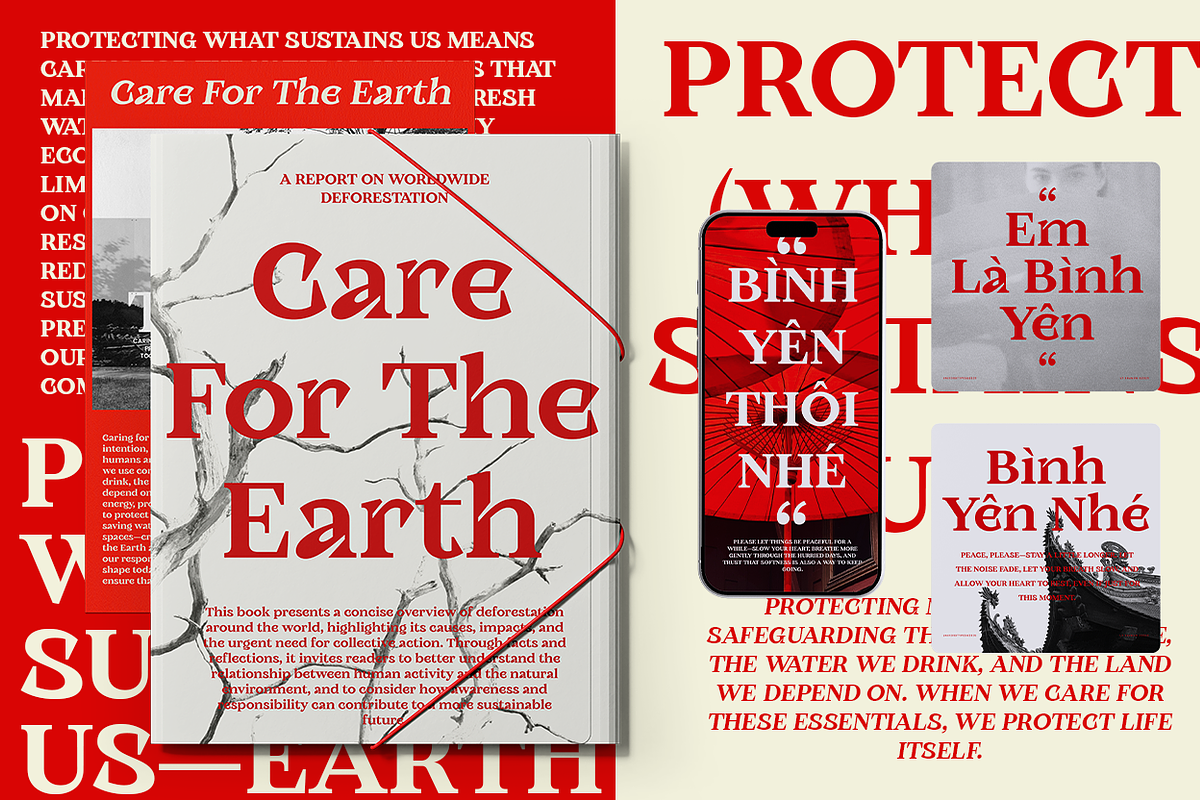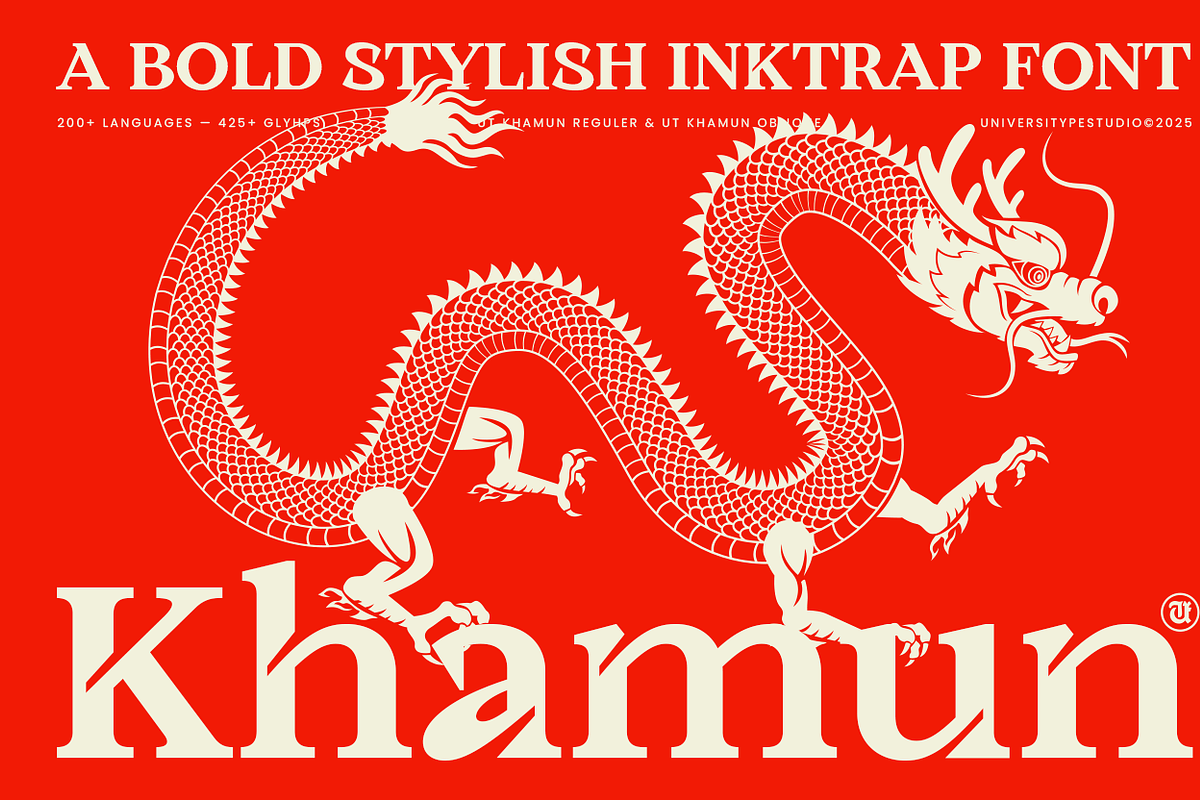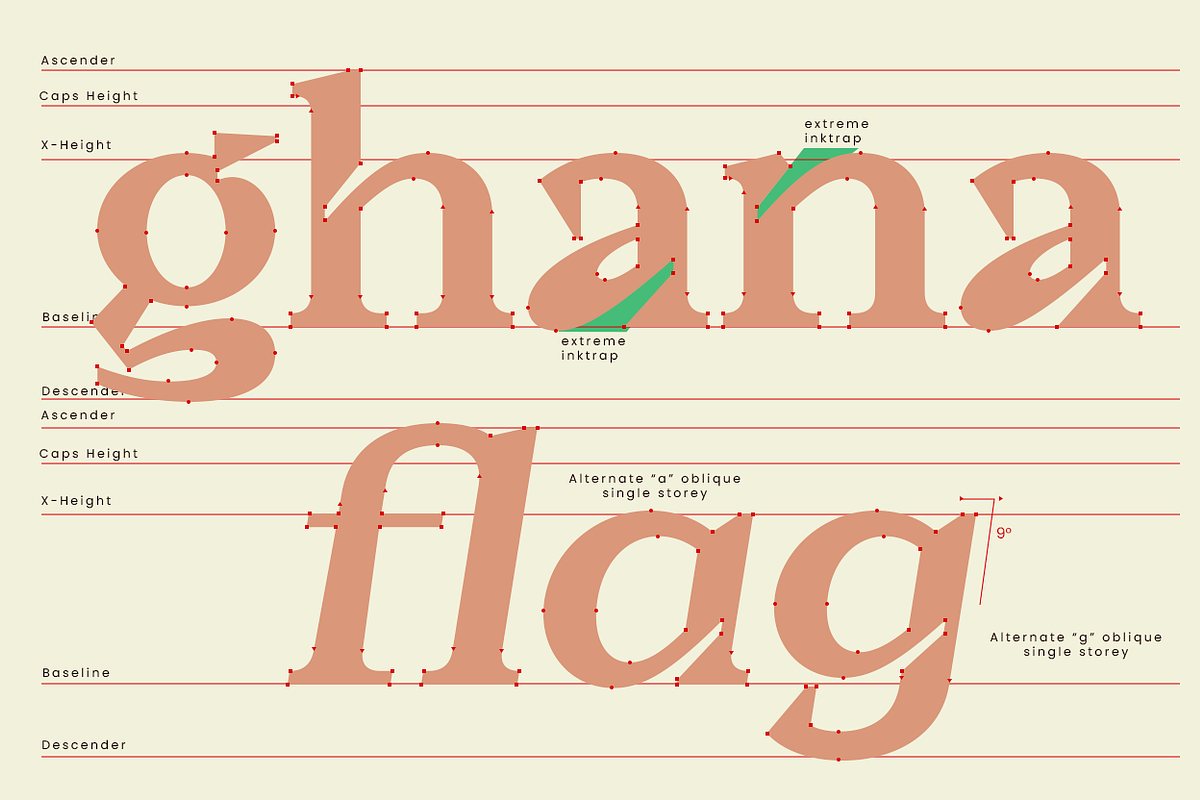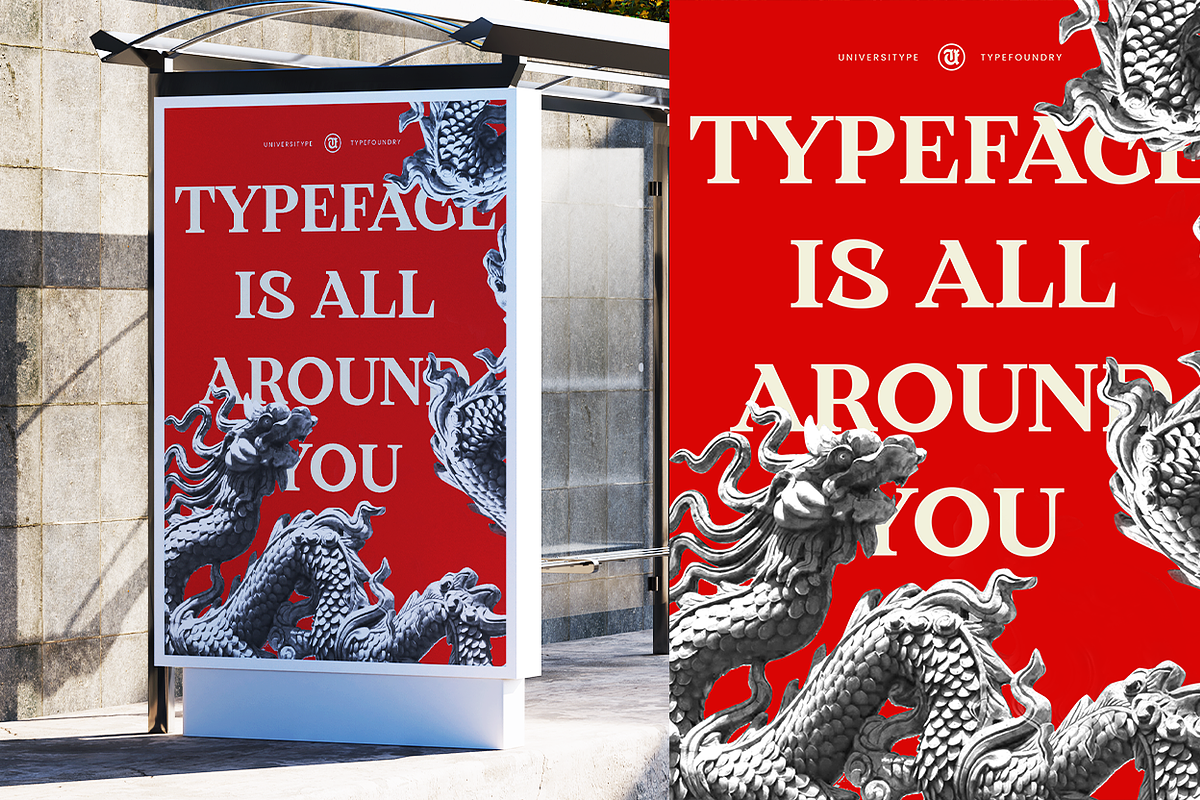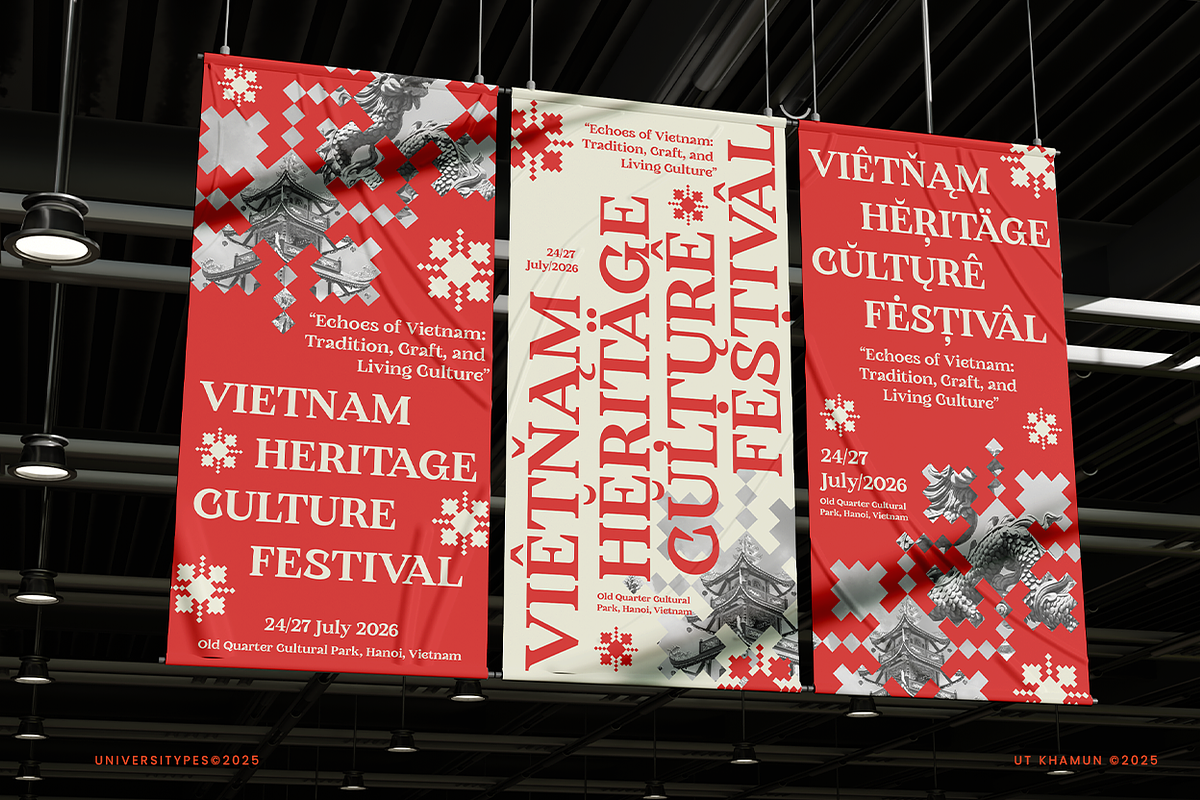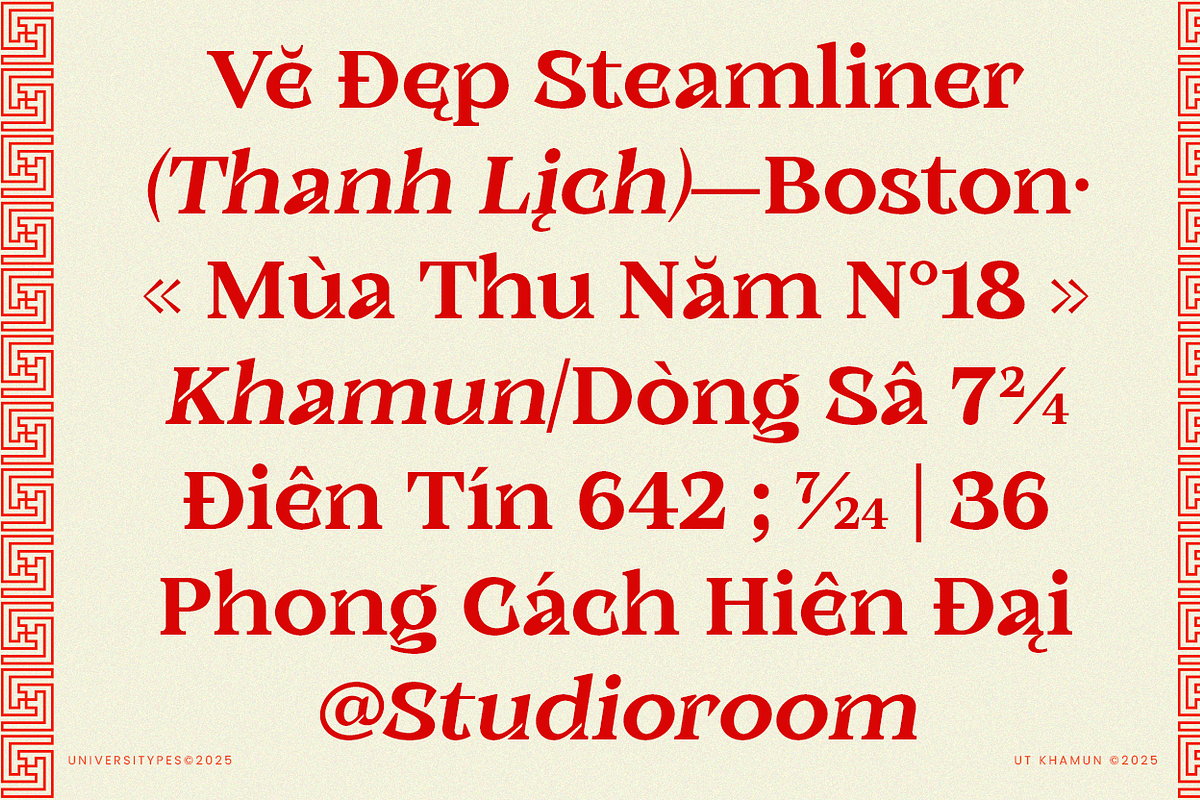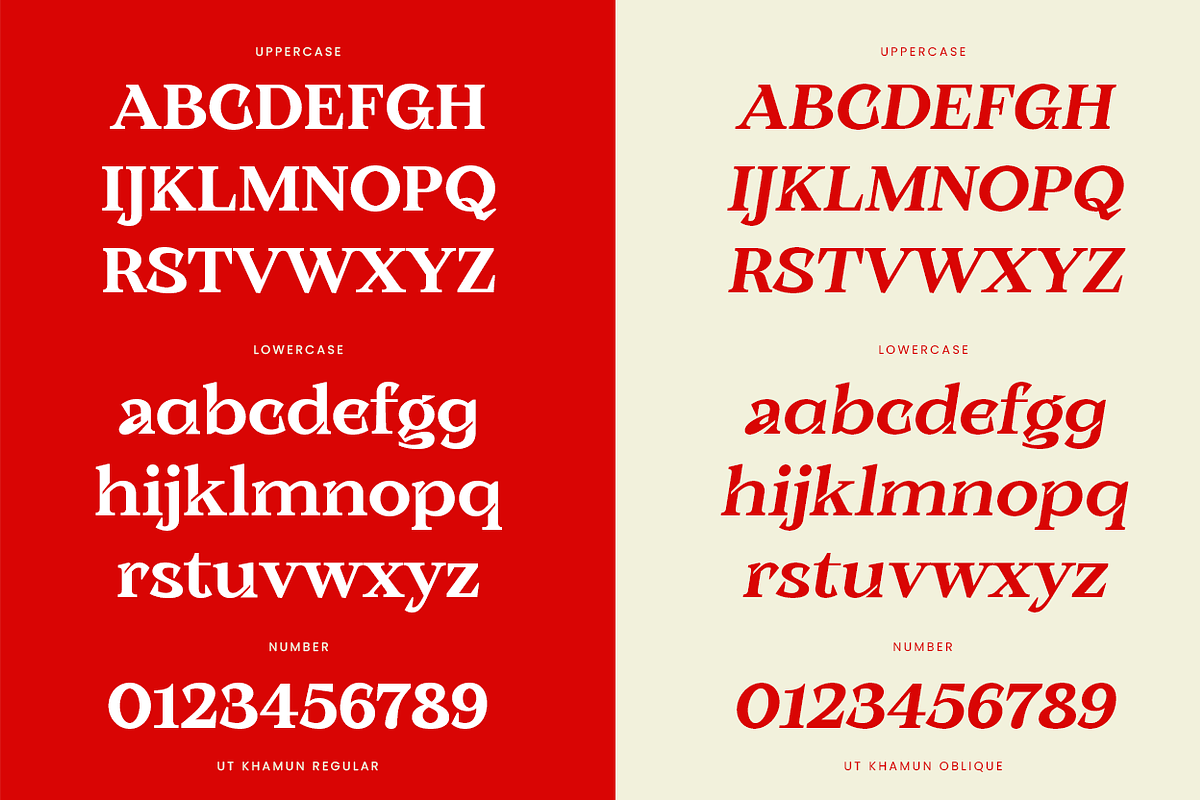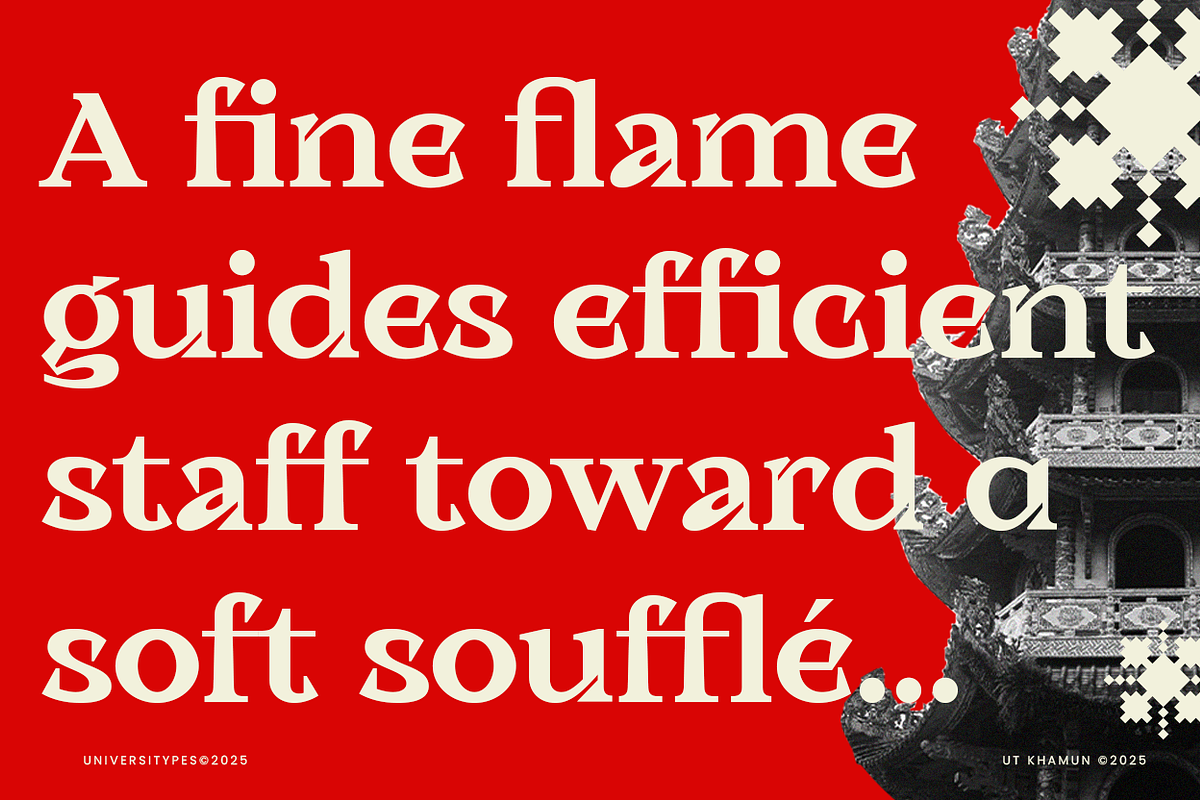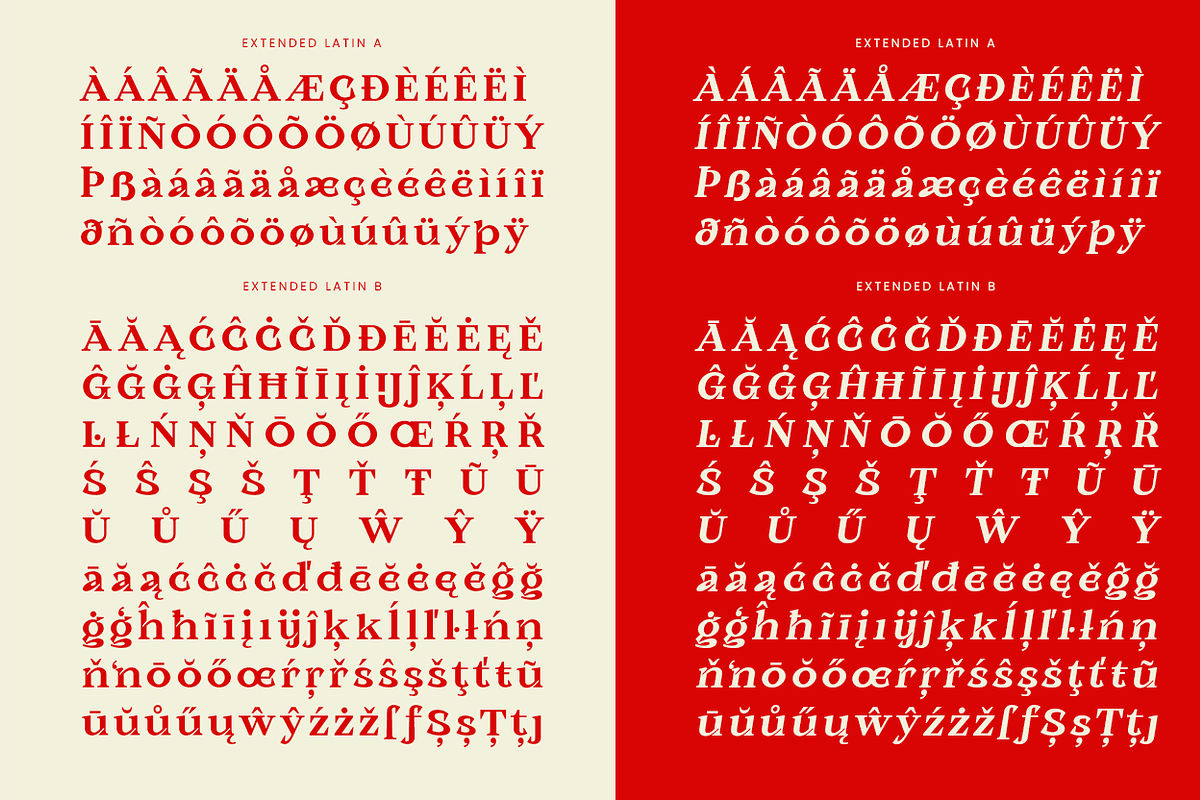
UT Khamun - A Stylish Inktrap Font
UT Khamun – Bold Inktrap Serif Font
UT Khamun is a bold inktrap serif built for strong visual statements. Heavy strokes, sharp cuts, and deep inktraps give the letters a confident texture that feels solid and expressive at display sizes. The balance between dramatic details and controlled proportions makes this typeface feel powerful, crafted, and intentional—perfect when typography needs to lead the conversation.
Best for Branding, logos, editorial headlines, posters, cultural visuals, fashion graphics, packaging, social media typography
Key features
- Bold serif with extreme inktrap details
- Strong contrast for impactful headlines
- Display-focused proportions
- Extended Latin language support
- Designed for large-scale typography
Font details
- 425+ glyphs
- 200+ languages supported
- Extended Latin A & B
- Numerals & punctuation
- Stylistic alternates
- Single-storey alternate characters